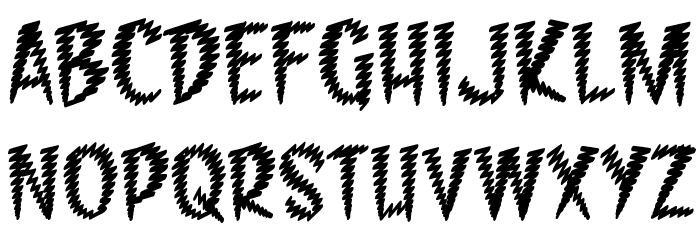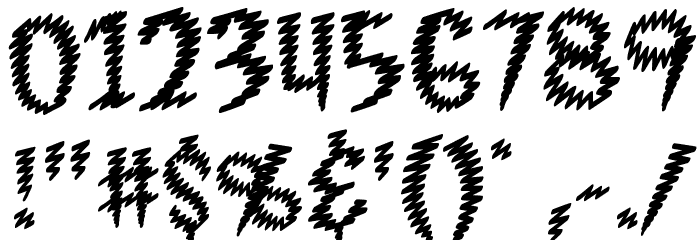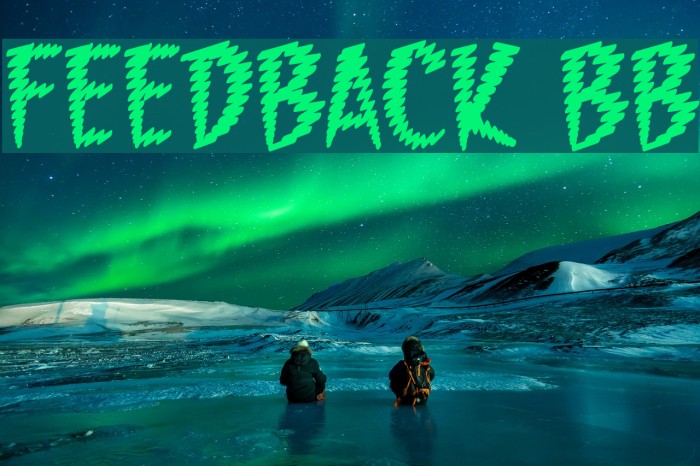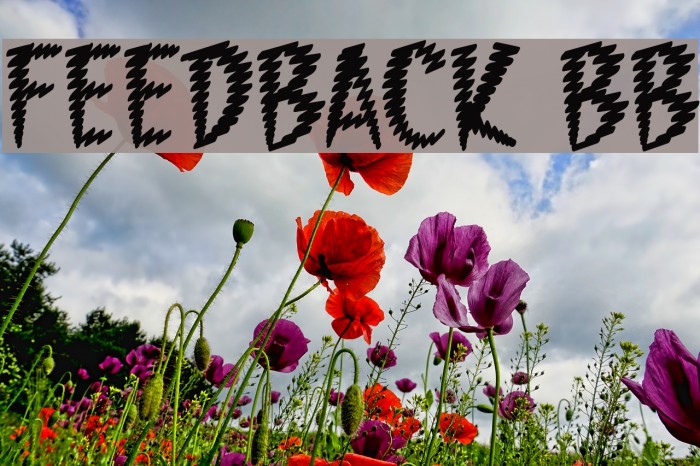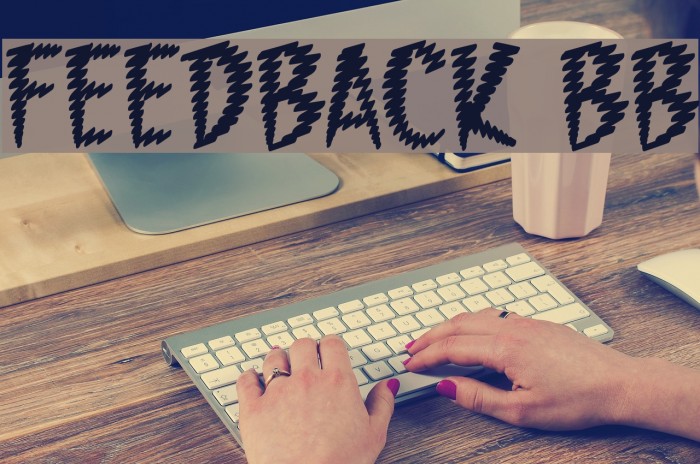
Feedback BB Font
This font features a bold and dynamic zigzag pattern that gives each character a sense of movement and energy. The sharp, jagged edges create a striking visual impact, making it ideal for attention-grabbing designs. The uppercase and lowercase letters maintain a consistent style, with each character exhibiting a unique, electrifying texture. Numbers and special characters follow the same design principles, ensuring a cohesive look across all text elements. The font's distinctive style is perfect for projects that require a bold statement or a modern, edgy aesthetic.
A bold, zigzag-patterned font with a dynamic and energetic style.
- Proposed Projects: Ideal for posters, album covers, branding, and any design requiring a bold, modern impact.